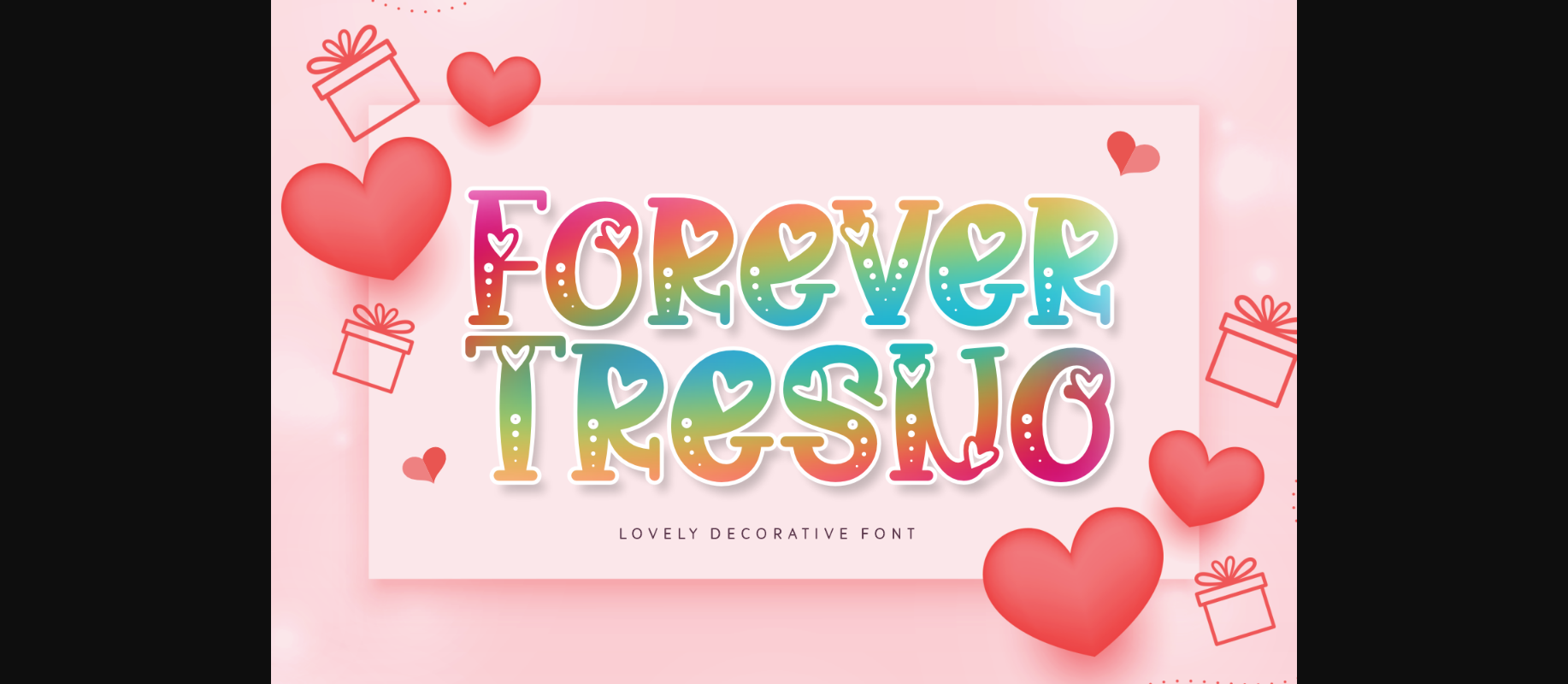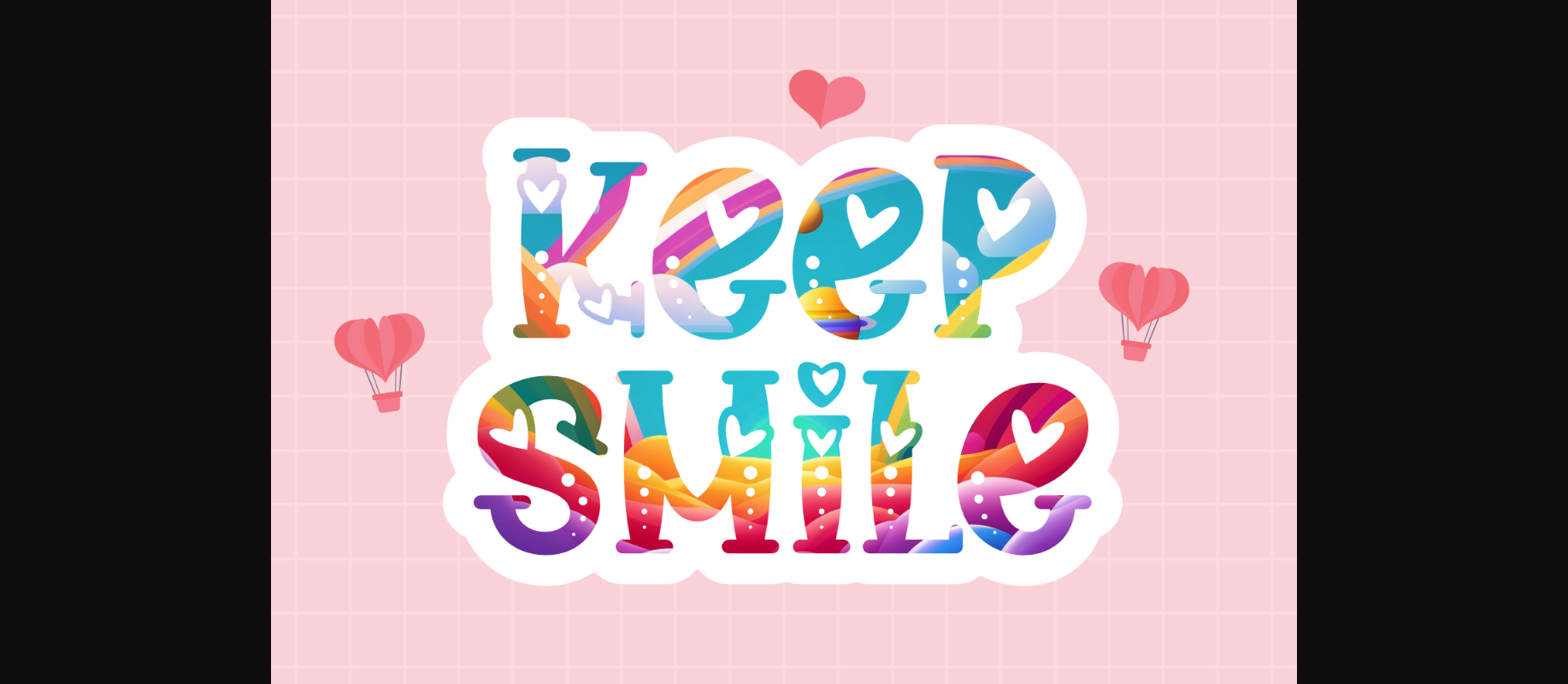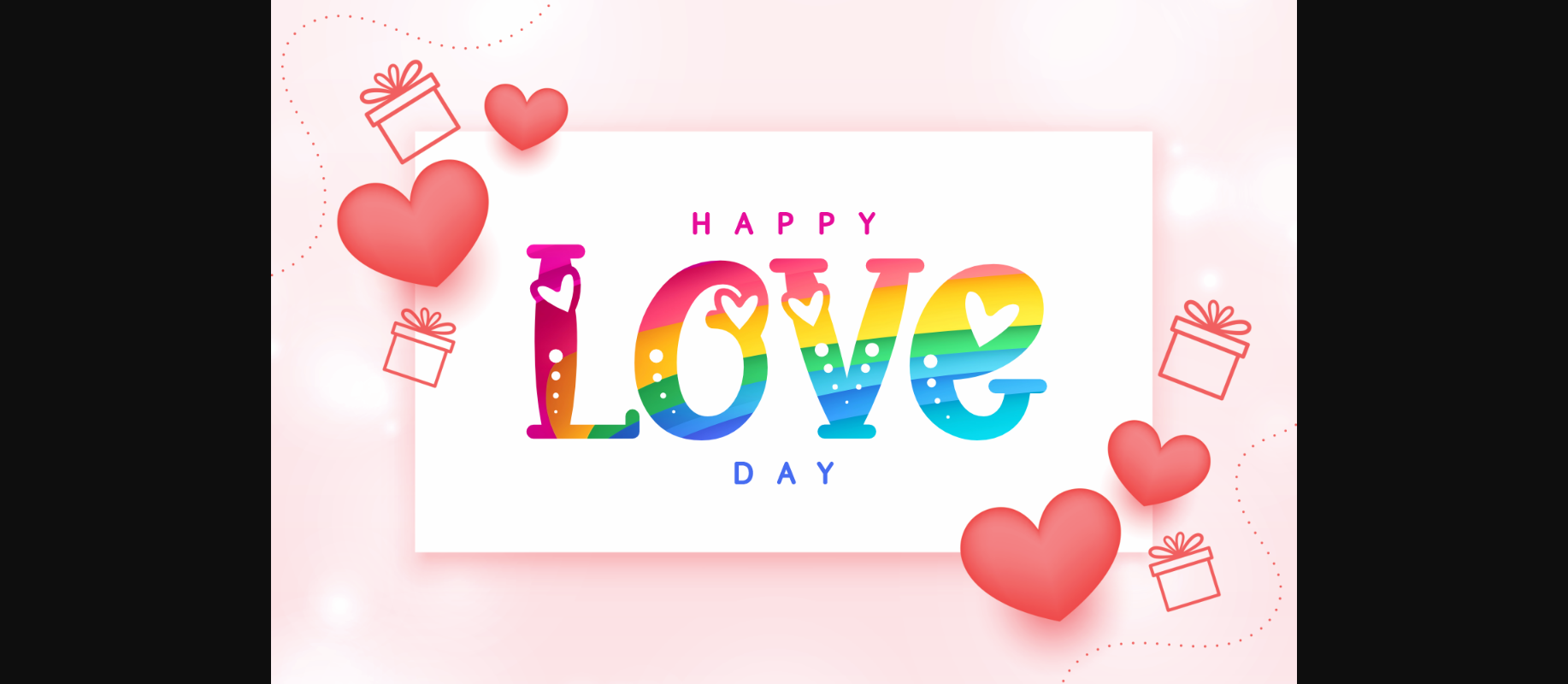
Forever Tresno Font
About Forever Tresno Font
Forever Tresno is an organic and beautiful decorative font, featuring lovely ornaments. No matter the topic, this font will be an incredible asset to your fonts’ library, as it has the potential to elevate any creation.